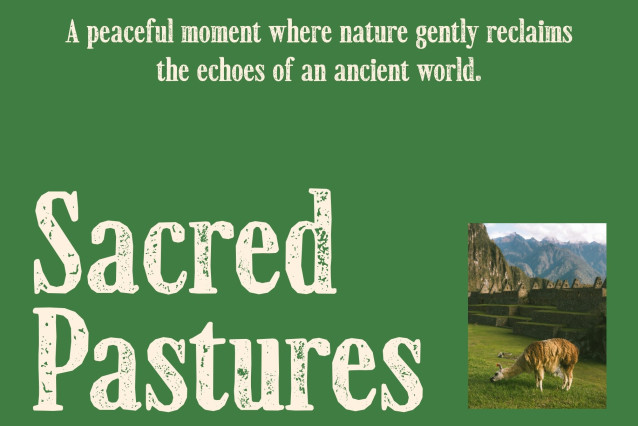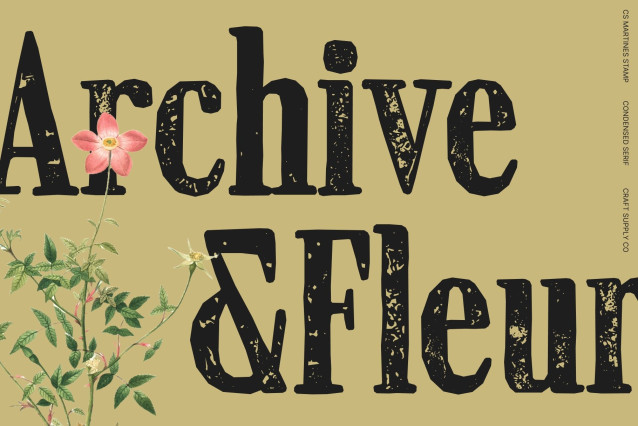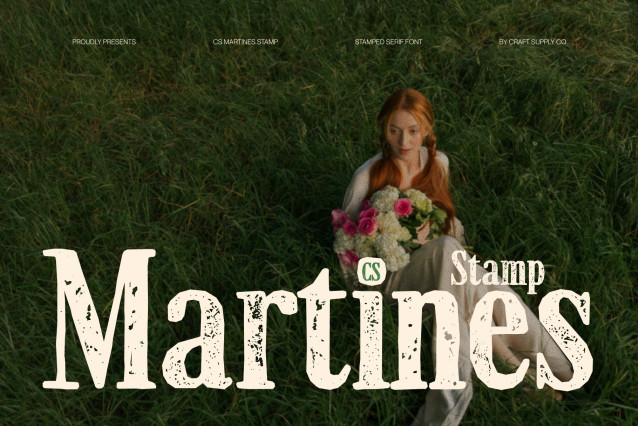
CS Martines Stamp Font
CS Martines Stamp – Modern Serif Display Font: Where Elegance Meets Textured Sophistication
Clean Contemporary Forms with Refined Presence
This is a modern serif display font defined by clean, contemporary shapes and a polished structure. Its refined letterforms deliver clarity and balance, allowing each character to communicate with confidence and grace. Designed for visual impact without excess, it offers a sleek and modern interpretation of classic serif styling.
Subtle Handmade Texture with Artistic Depth
This font introduces a subtle handmade texture that enriches its overall appearance. The lightly distressed finish adds depth and a tactile quality, giving the font an artistic nuance without overpowering its elegance. This detail creates a sophisticated balance between precision and organic expression.